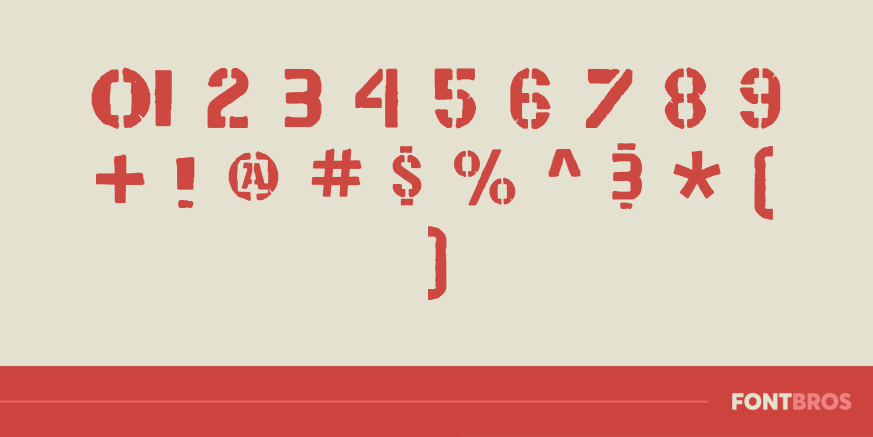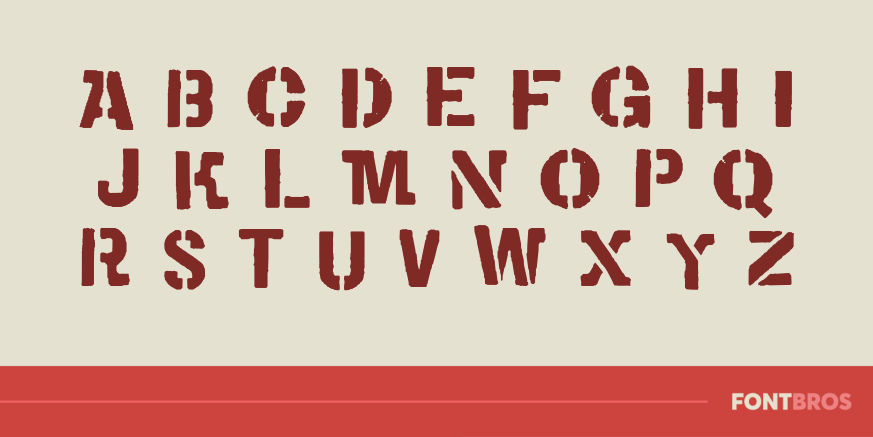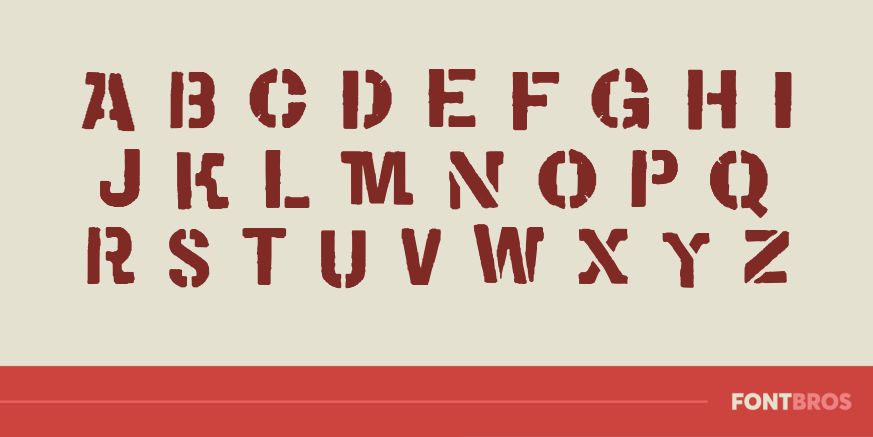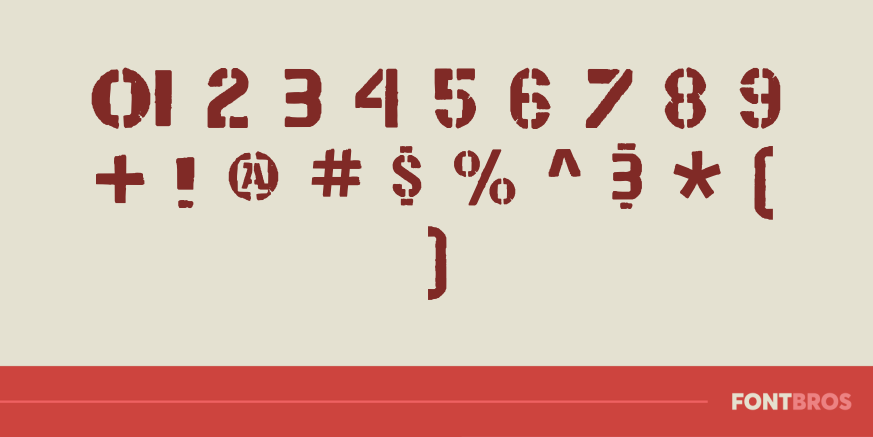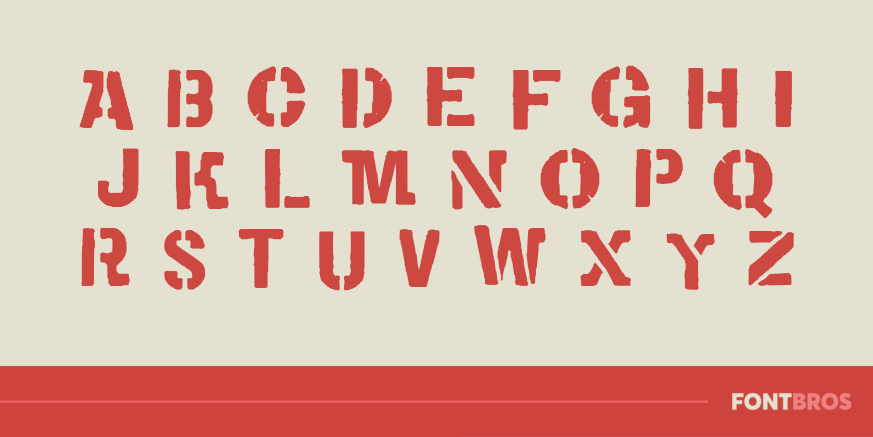
WARNING!
Font Family by Font Diner
When its gotta be urgent, send a WARNING! This retro stencil font is just the ticket to ward off any would-be troublemakers up to any shenanigans